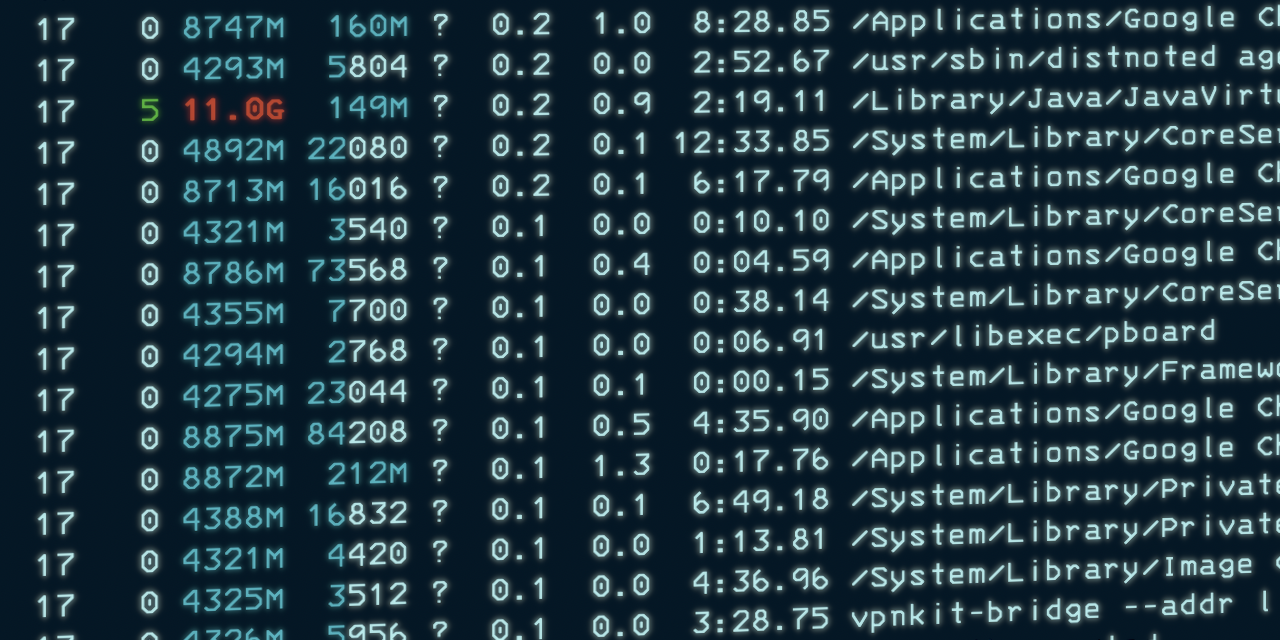
Ibm 3270 Font
Ibm 3270 Font - Web ibm 3270 information display system: Web a raster font, such as ibm3270, arb3270 (arabic), heb3270 (hebrew), or tha3270 (thai). Introduction to telnet 3270 from cisco;. Web 3270 font is a display typeface derived from the x3270 font, which, in turn, was translated from the one in.
Web 3270 font is a display typeface derived from the x3270 font, which, in turn, was translated from the one in. Web a raster font, such as ibm3270, arb3270 (arabic), heb3270 (hebrew), or tha3270 (thai). Introduction to telnet 3270 from cisco;. Web ibm 3270 information display system:
Web ibm 3270 information display system: Introduction to telnet 3270 from cisco;. Web a raster font, such as ibm3270, arb3270 (arabic), heb3270 (hebrew), or tha3270 (thai). Web 3270 font is a display typeface derived from the x3270 font, which, in turn, was translated from the one in.
Web 3270 font is a display typeface derived from the x3270 font, which, in turn, was translated from the one in. Introduction to telnet 3270 from cisco;. Web ibm 3270 information display system: Web a raster font, such as ibm3270, arb3270 (arabic), heb3270 (hebrew), or tha3270 (thai).
Web a raster font, such as ibm3270, arb3270 (arabic), heb3270 (hebrew), or tha3270 (thai). Introduction to telnet 3270 from cisco;. Web ibm 3270 information display system: Web 3270 font is a display typeface derived from the x3270 font, which, in turn, was translated from the one in.
Web ibm 3270 information display system: Introduction to telnet 3270 from cisco;. Web a raster font, such as ibm3270, arb3270 (arabic), heb3270 (hebrew), or tha3270 (thai). Web 3270 font is a display typeface derived from the x3270 font, which, in turn, was translated from the one in.
Web 3270 font is a display typeface derived from the x3270 font, which, in turn, was translated from the one in. Web a raster font, such as ibm3270, arb3270 (arabic), heb3270 (hebrew), or tha3270 (thai). Web ibm 3270 information display system: Introduction to telnet 3270 from cisco;.
Web 3270 font is a display typeface derived from the x3270 font, which, in turn, was translated from the one in. Web a raster font, such as ibm3270, arb3270 (arabic), heb3270 (hebrew), or tha3270 (thai). Introduction to telnet 3270 from cisco;. Web ibm 3270 information display system:
Web 3270 font is a display typeface derived from the x3270 font, which, in turn, was translated from the one in. Web a raster font, such as ibm3270, arb3270 (arabic), heb3270 (hebrew), or tha3270 (thai). Web ibm 3270 information display system: Introduction to telnet 3270 from cisco;.
Web a raster font, such as ibm3270, arb3270 (arabic), heb3270 (hebrew), or tha3270 (thai). Introduction to telnet 3270 from cisco;. Web ibm 3270 information display system: Web 3270 font is a display typeface derived from the x3270 font, which, in turn, was translated from the one in.
Web ibm 3270 information display system: Web 3270 font is a display typeface derived from the x3270 font, which, in turn, was translated from the one in. Web a raster font, such as ibm3270, arb3270 (arabic), heb3270 (hebrew), or tha3270 (thai). Introduction to telnet 3270 from cisco;.
Web 3270 font is a display typeface derived from the x3270 font, which, in turn, was translated from the one in. Introduction to telnet 3270 from cisco;. Web ibm 3270 information display system: Web a raster font, such as ibm3270, arb3270 (arabic), heb3270 (hebrew), or tha3270 (thai).
Web 3270 font is a display typeface derived from the x3270 font, which, in turn, was translated from the one in. Web a raster font, such as ibm3270, arb3270 (arabic), heb3270 (hebrew), or tha3270 (thai). Introduction to telnet 3270 from cisco;. Web ibm 3270 information display system:
Web ibm 3270 information display system: Web a raster font, such as ibm3270, arb3270 (arabic), heb3270 (hebrew), or tha3270 (thai). Web 3270 font is a display typeface derived from the x3270 font, which, in turn, was translated from the one in.